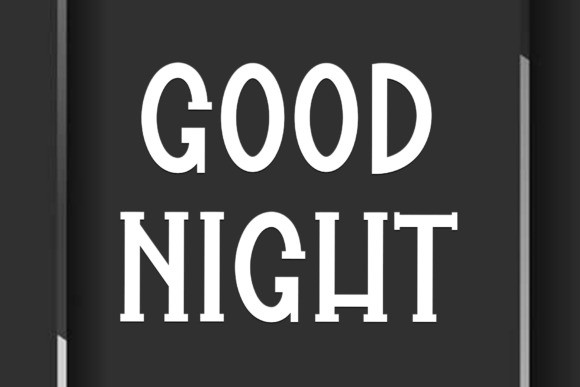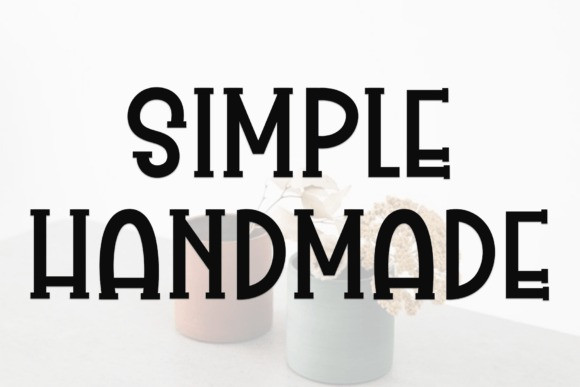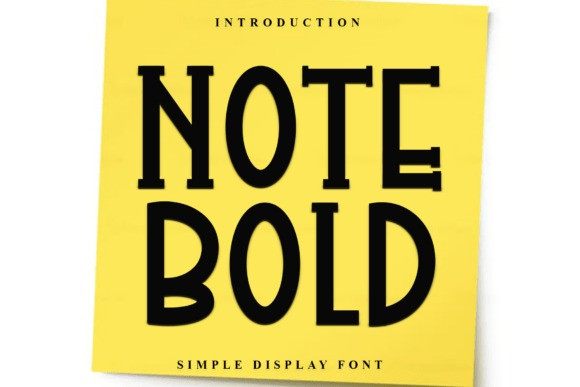
Note Bold Font
Note Bold Font is a beautiful and eye-catching font designed with a soft, unique touch. Its distinctive strokes give it a special character, making it meaningful and versatile for future use. With various characters, it’s perfect for design projects, crafts, and other creative works.